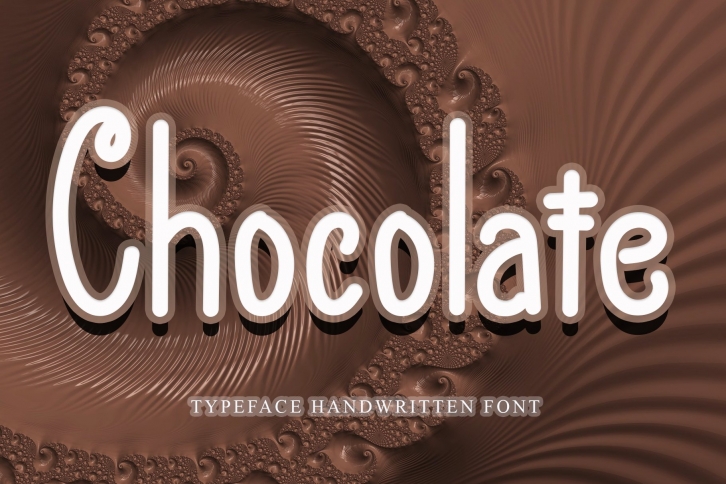
Chocolate is a great font that was designed by Giart Studios. Imagine the amount of combinations you can create using this font! The archive is 9.65 MB and it was released on June 21, 2021. Chocolate looks beautiful on wedding invitations, greeting cards, logos, posters, labels, t-shirt designs, logos, business cards and is perfect for use in ink or watercolor works, fashion, magazines, packaging and food menus, children's books and more!